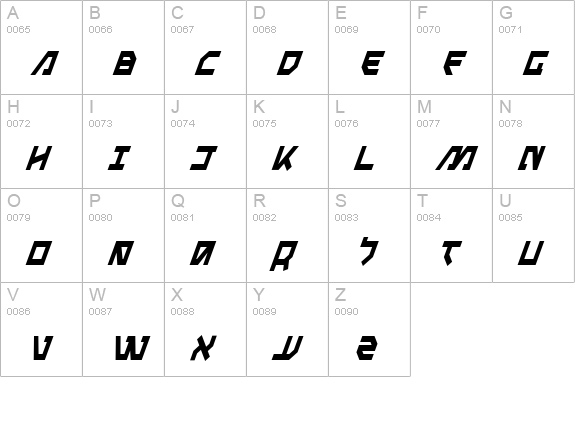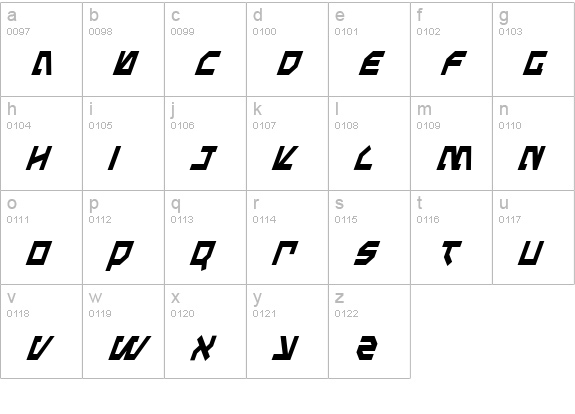
Metal Storm Condensed Italic is a distinctive, condensed-width, italic variant in the Metal typeface family \xE2\x80\x94 well suited to design and typography projects.
Metal Storm Condensed Italic font adds a touch of modern elegance to any design project. With its sleek and stylish appearance, this typeface exudes a sense of sophistication and professionalism. The condensed italic style of the font gives it a unique and eye-catching look that is perfect for headers, logos, and other design elements. What sets Metal Storm Condensed Italic font apart is not only its striking design but also its availability for free download. That's right, this high-quality font can be freely accessed at FontsMarket.com, allowing designers and creators to enhance their projects without breaking the bank. Whether you're working on a website, branding materials, or any other creative endeavor, Metal Storm Condensed Italic font is sure to make a bold statement. Download it today and elevate your designs with this exceptional typeface.